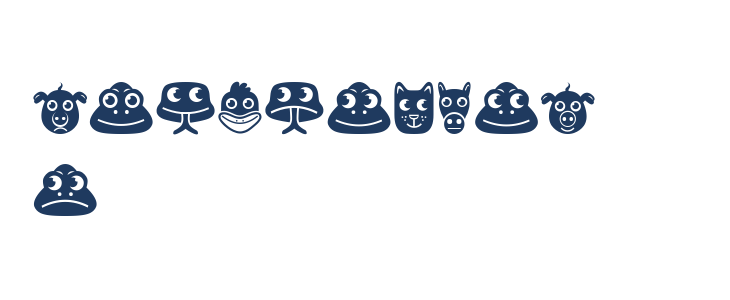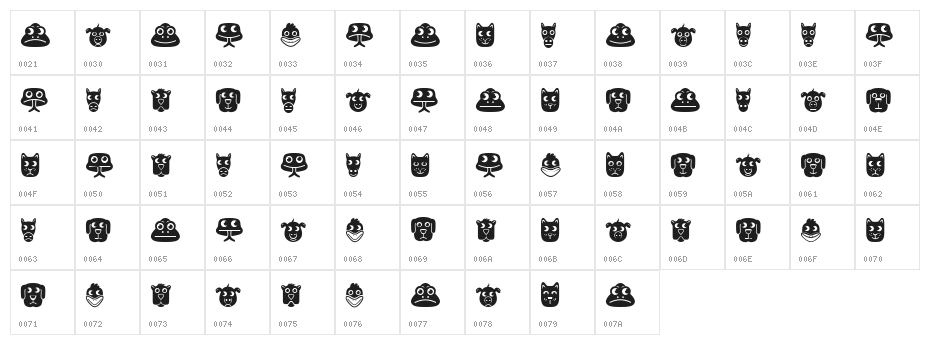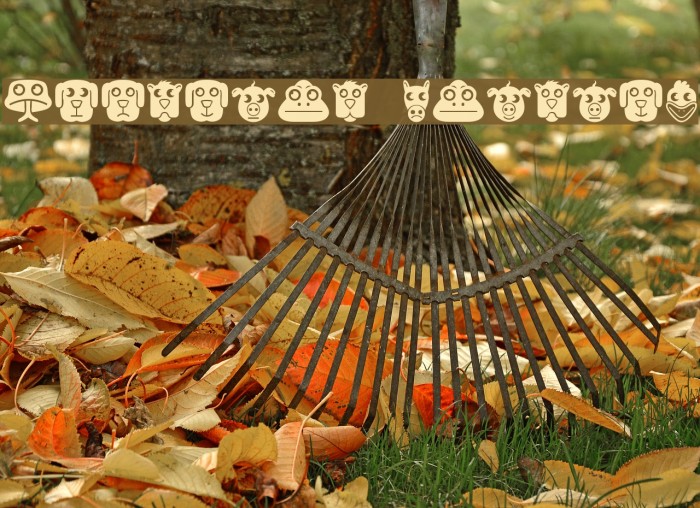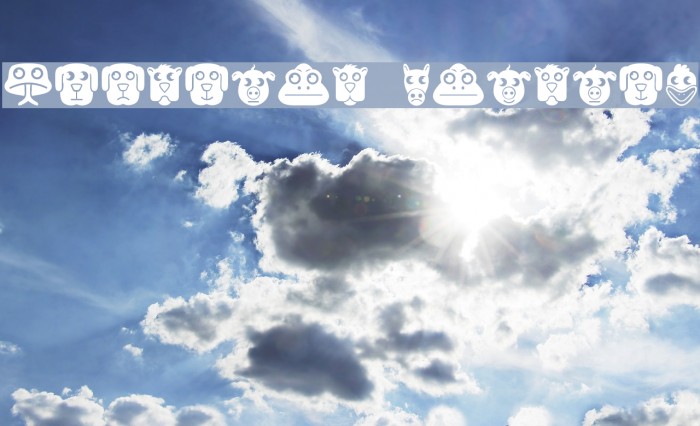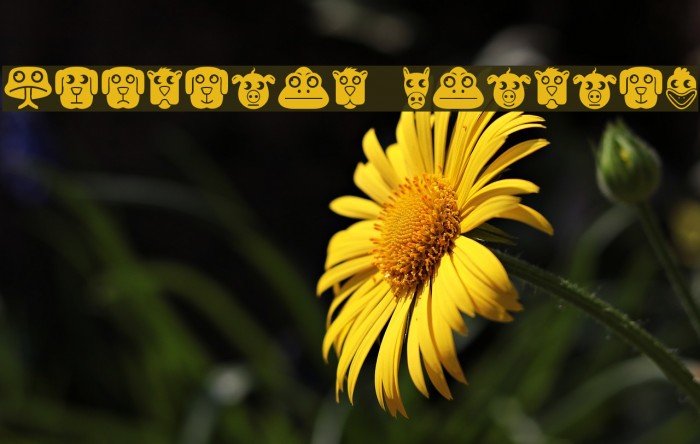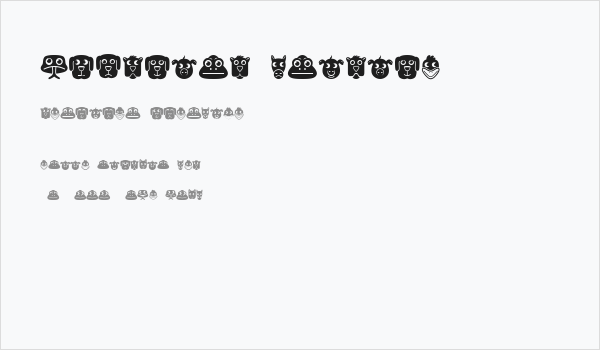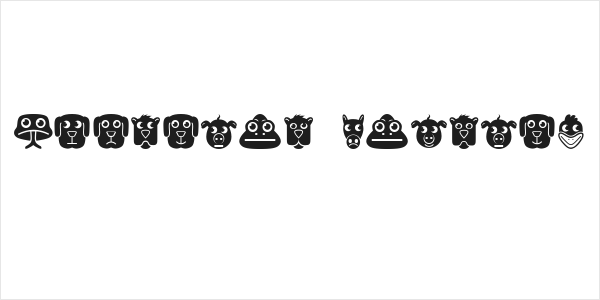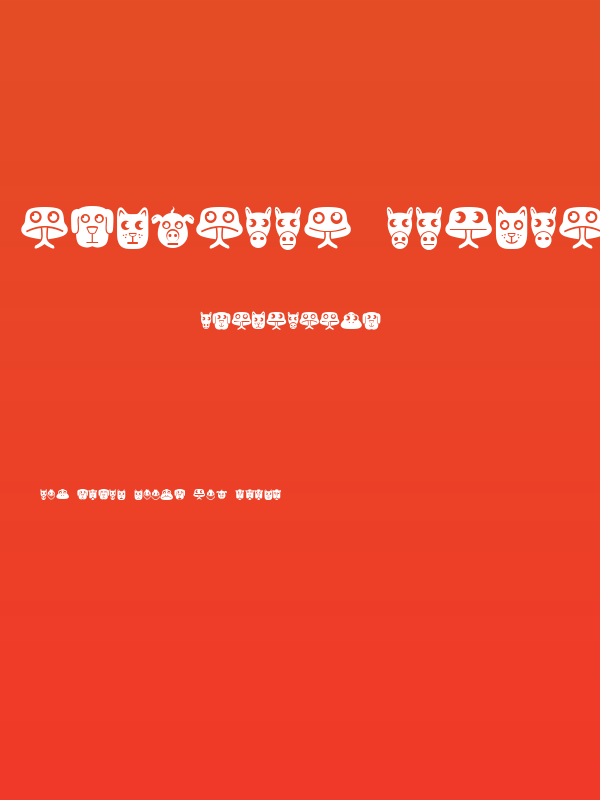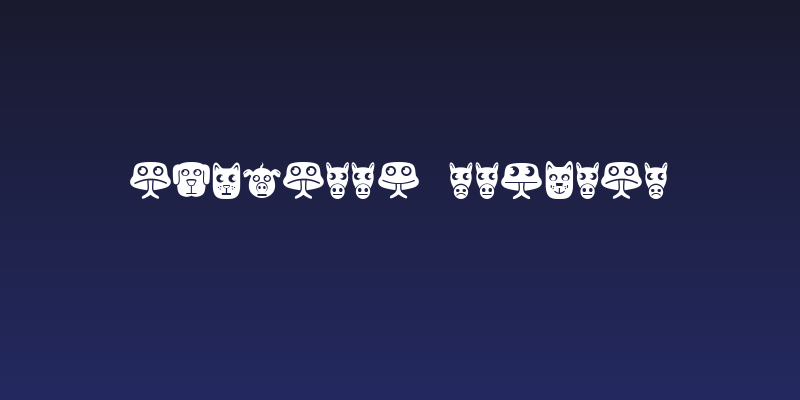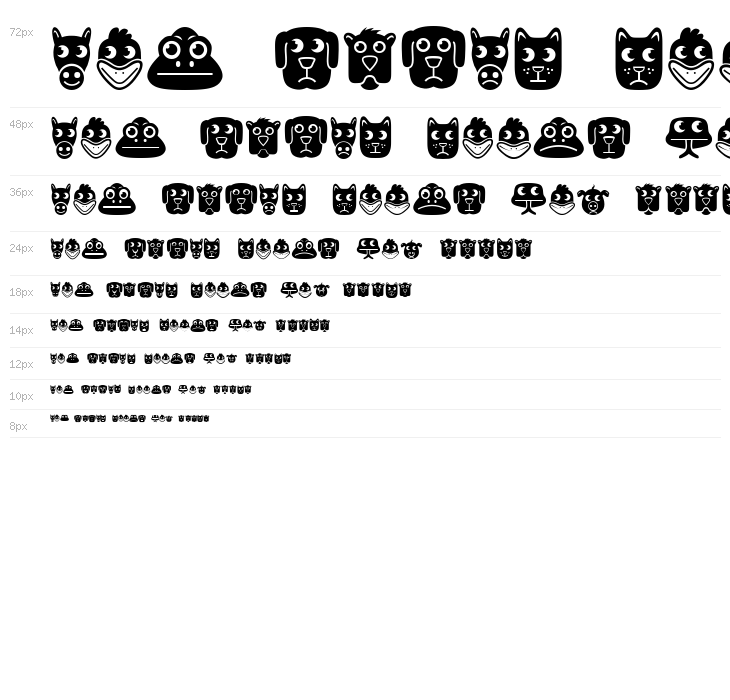
Animales Regular Font
Animales Regular Description
This font is a playful and whimsical collection of animal faces, each character representing a different animal with distinct features. The characters are bold and cartoonish, with exaggerated expressions that convey a sense of fun and creativity. The designs are consistent in style, featuring thick lines and rounded shapes that give each character a friendly and approachable appearance. This font is perfect for projects that require a touch of humor and personality, making it ideal for children's books, educational materials, or playful branding. The unique design of each character ensures that the font stands out, capturing attention and sparking imagination.
| Use Case | Logos, Posters, Children's books |
| Proposed Projects | Children's books, educational materials, playful branding, greeting cards, and posters. |